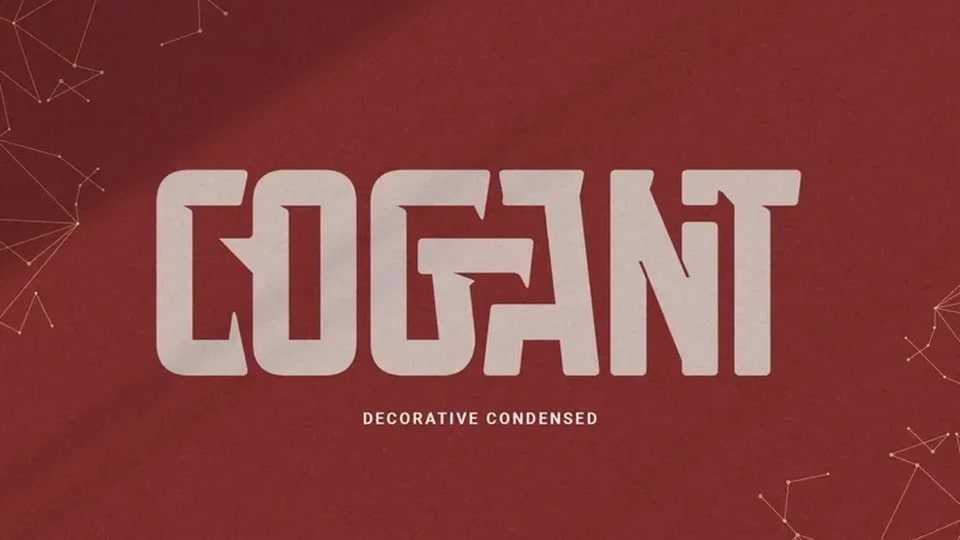
Download Cogant font, a bold, condensed typeface designed to make a statement. Its clean lines and strong character make it ideal for modern, impactful designs.